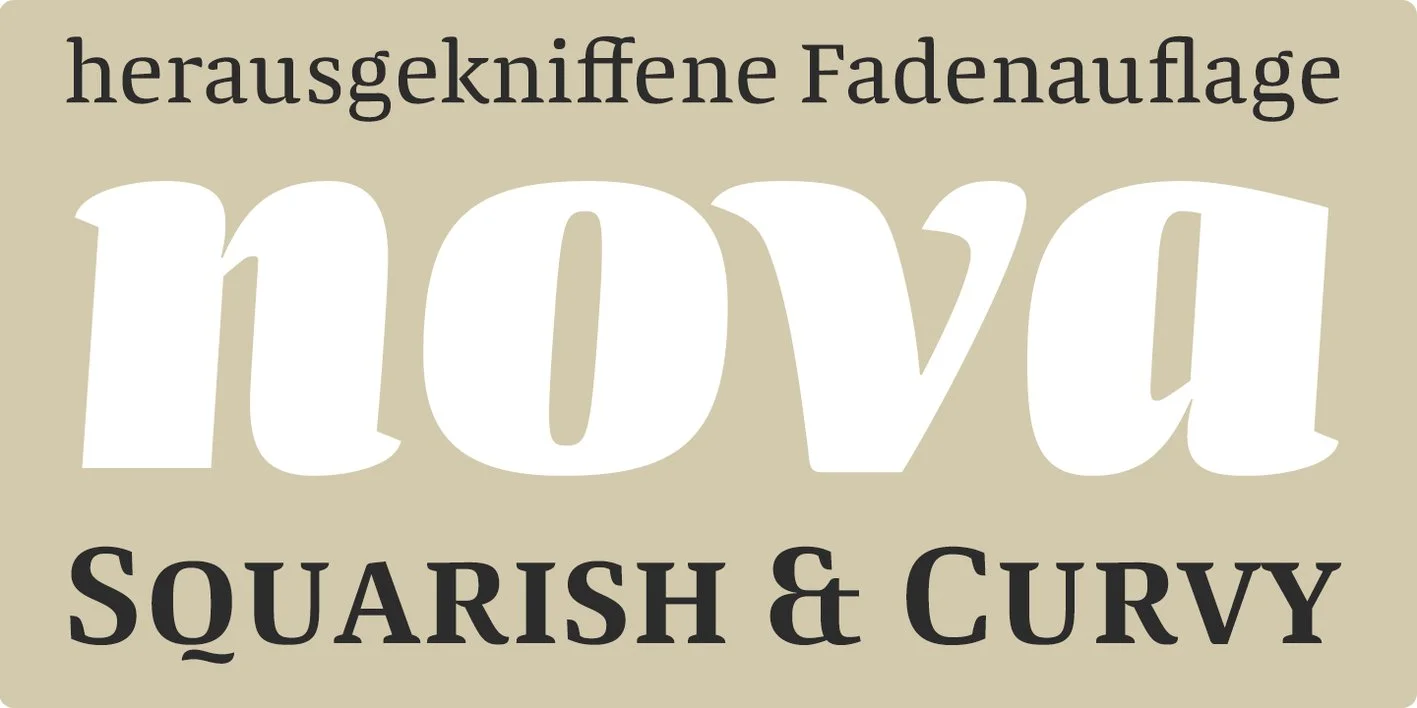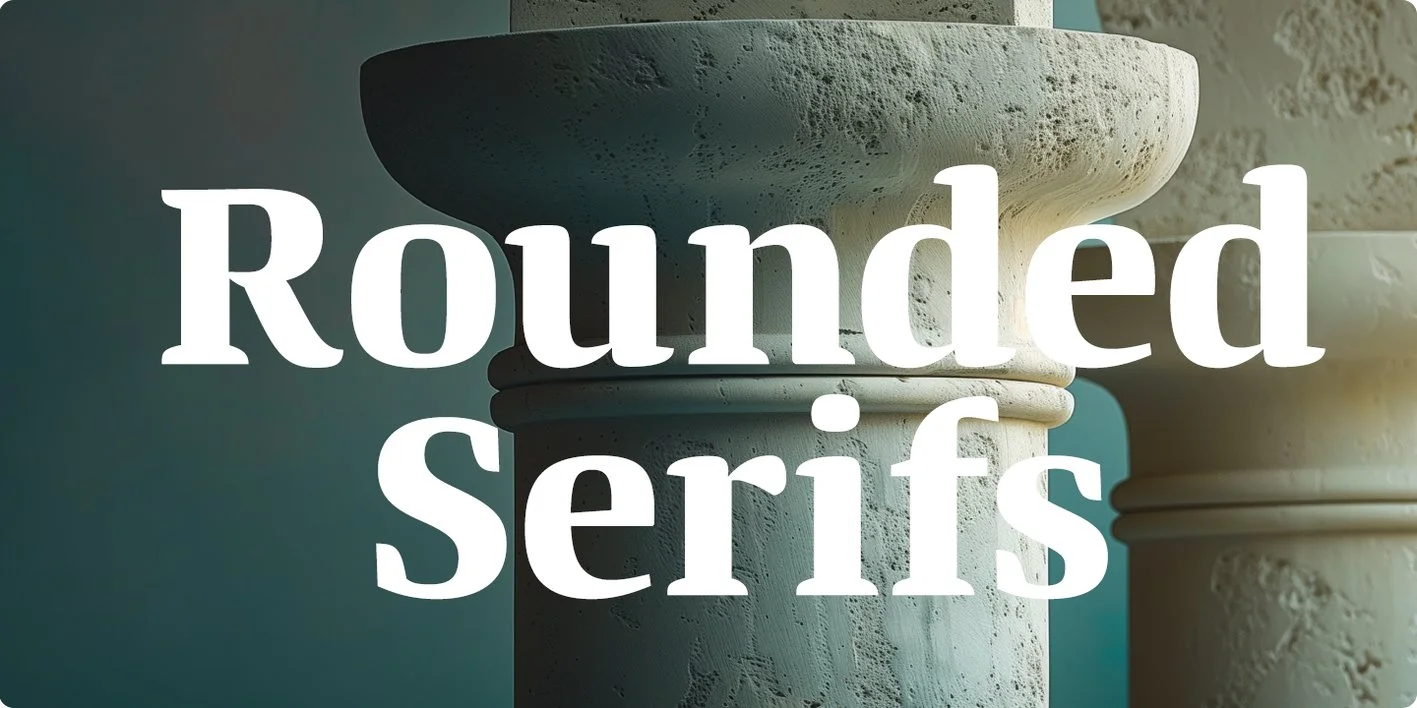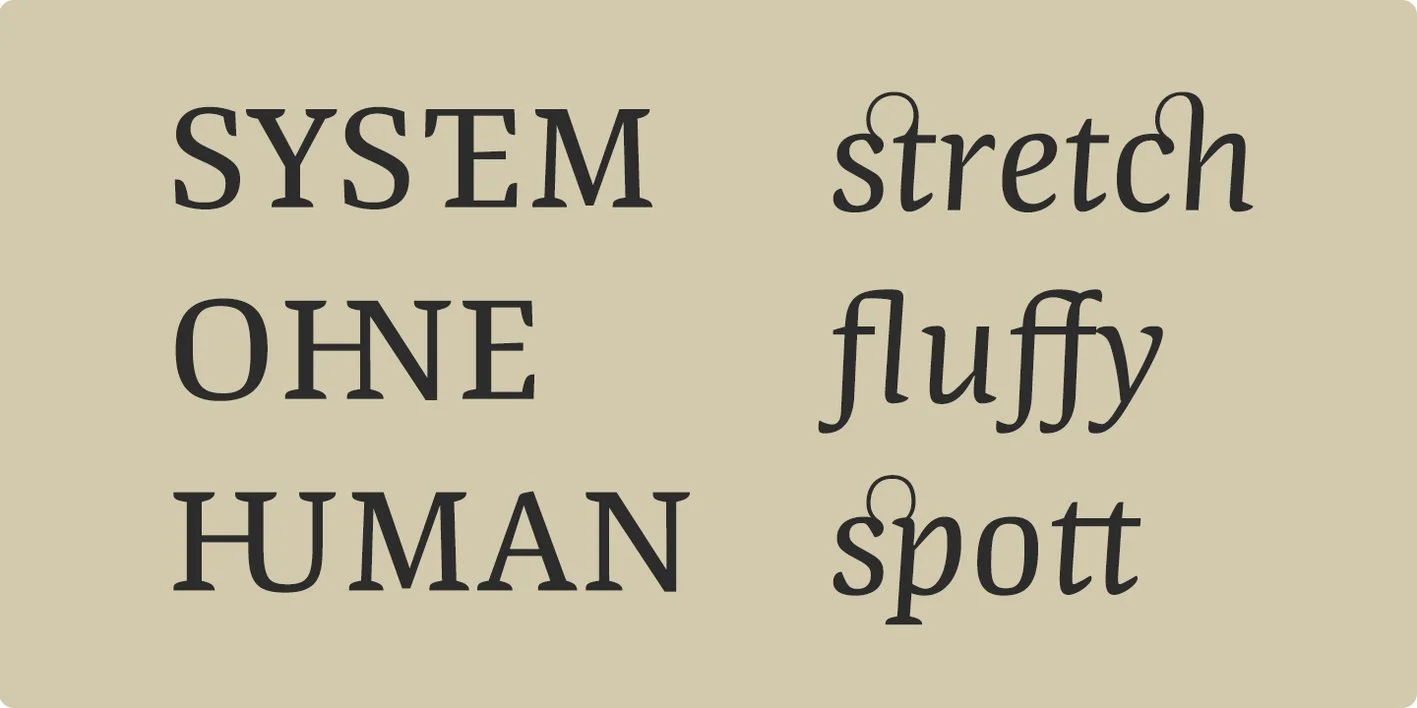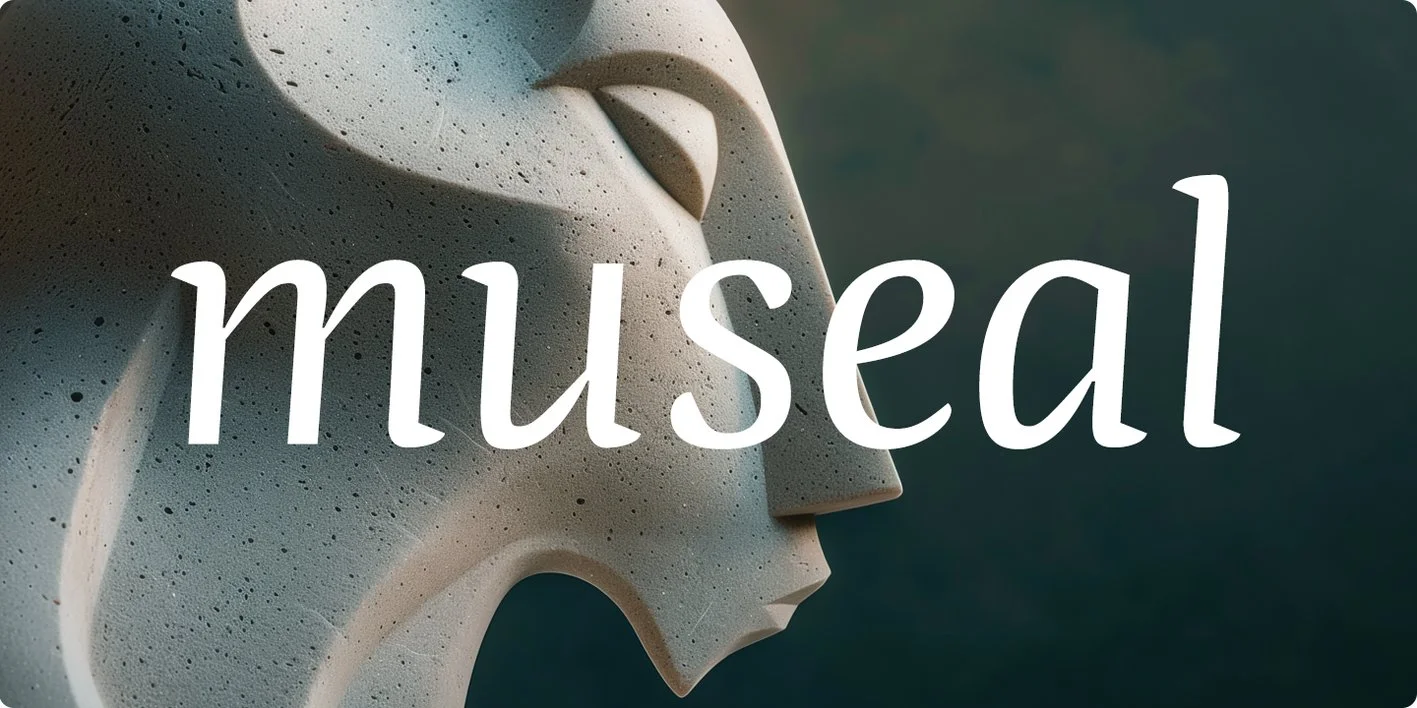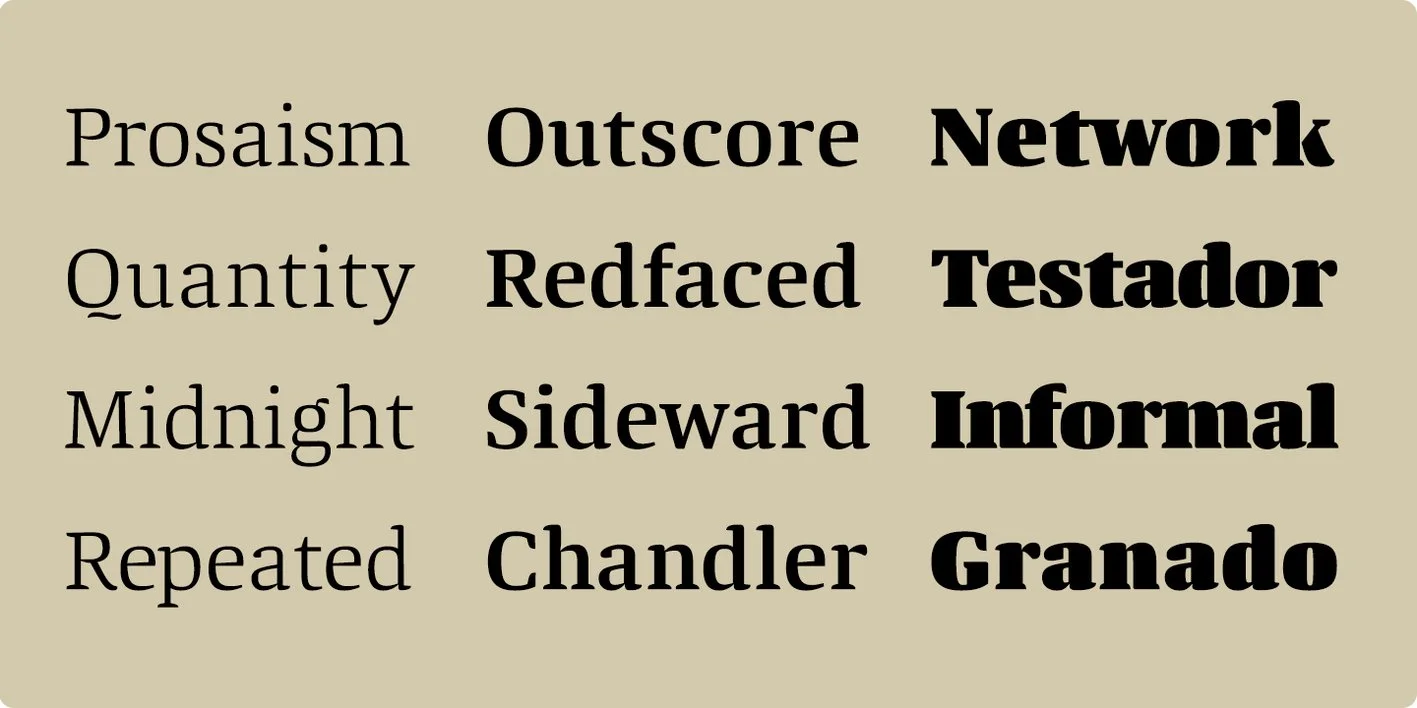
Quador Font
There is a particular satisfaction in finding a typeface that delivers refined proportions and careful stroke modulation without compromise. Quador consistently provides it. The typeface brings a versatile sensibility to a broad range of creative disciplines, with strong typographic hierarchy support that holds up whether the work is print-first or screen-first.
In practice, Quador proves particularly effective for logo design, brand identity systems, web design, annual reports, social media graphics. Designers reaching for it find that the type decisions feel resolved rather than laboured — a useful quality when client timelines are tight.
The range of applications extends to packaging design, signage systems, advertising campaigns, product labels. That breadth is deliberate: the proportions and spacing were stress-tested across a wide range of mock briefs before the typeface was finalised.
Motion designers building title sequences and lower thirds find Quador a reliable choice for projects that demand both personality and restraint. The design avoids the self-conscious quirkiness that dates quickly, settling instead for considered distinctiveness that holds up over time.